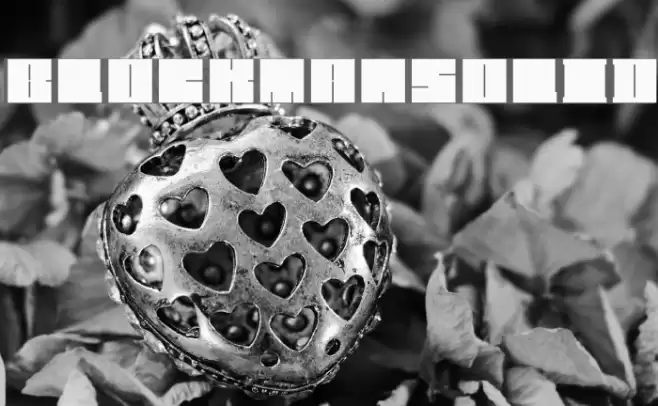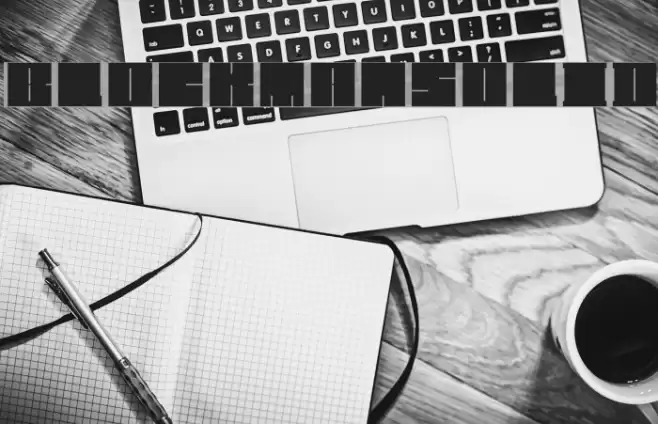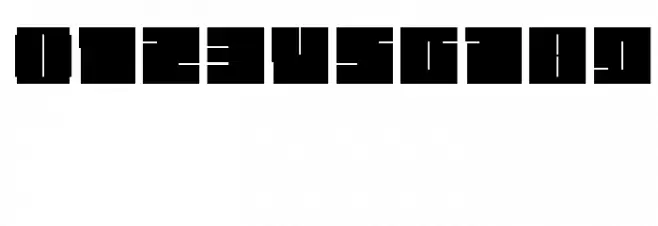
Blockman-solid Font
Blockman-solid Description
This font features a bold, geometric design with a solid, block-like appearance. Each character is constructed with uniform thickness, creating a cohesive and robust look. The angular edges and straight lines give it a modern and industrial feel, while the consistent height and width across characters ensure a balanced and structured presentation. The font's heavy weight and strong presence make it ideal for impactful and attention-grabbing designs. Its simplicity and clarity are maintained through minimal detailing, focusing on the boldness of each letterform.
A bold, geometric font with a solid, block-like design from Uncategorized fonts.
- Proposed Projects: Ideal for posters, headlines, logos, and branding materials that require a strong visual impact.